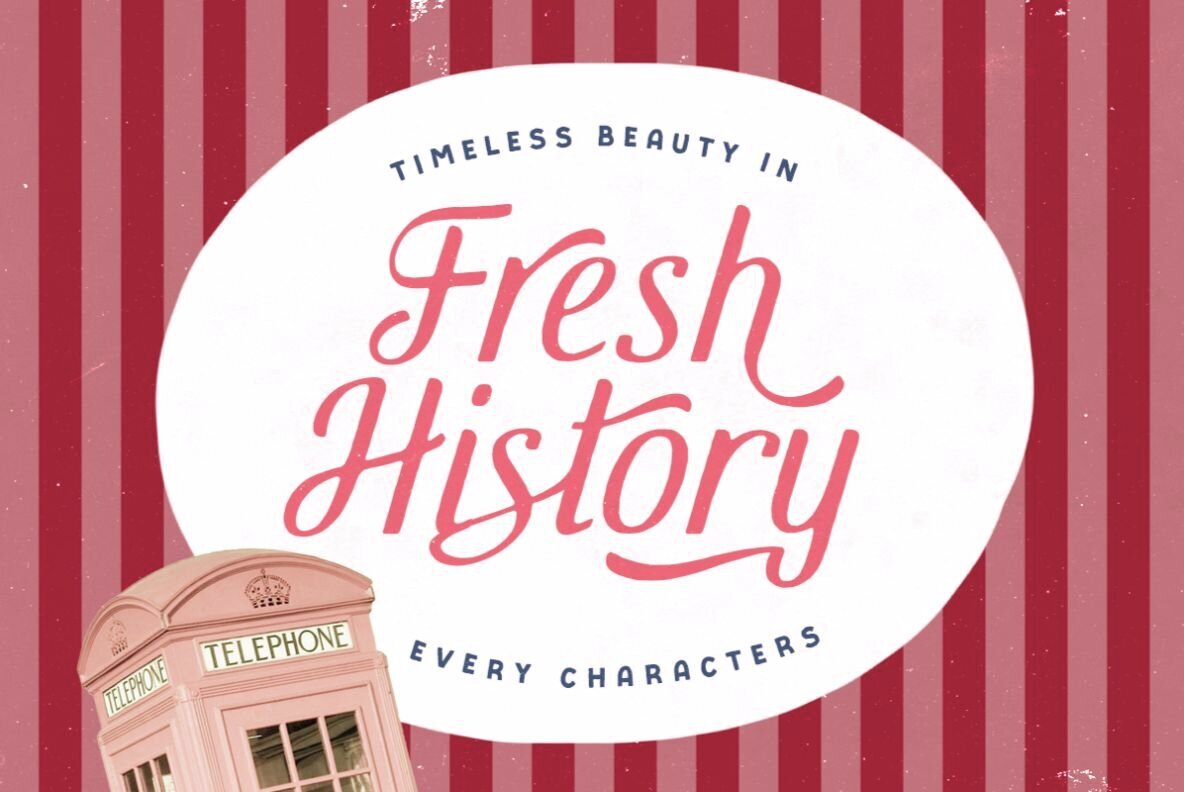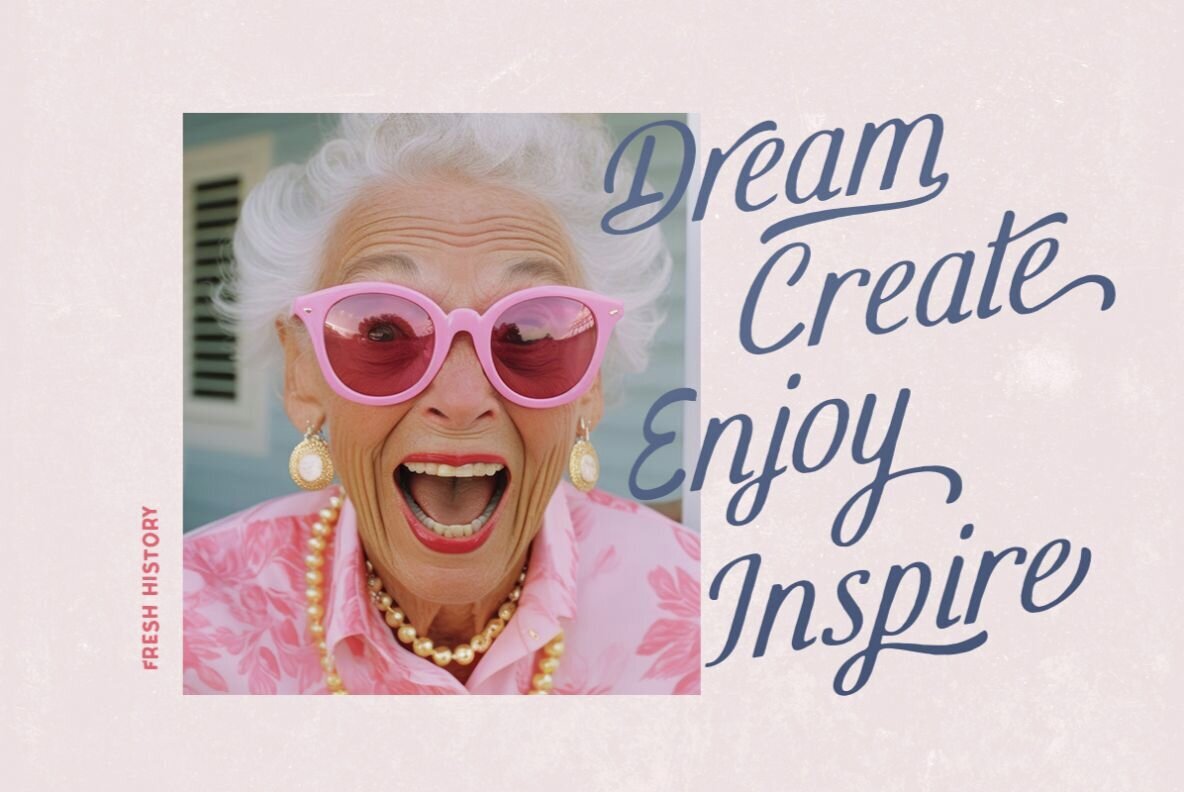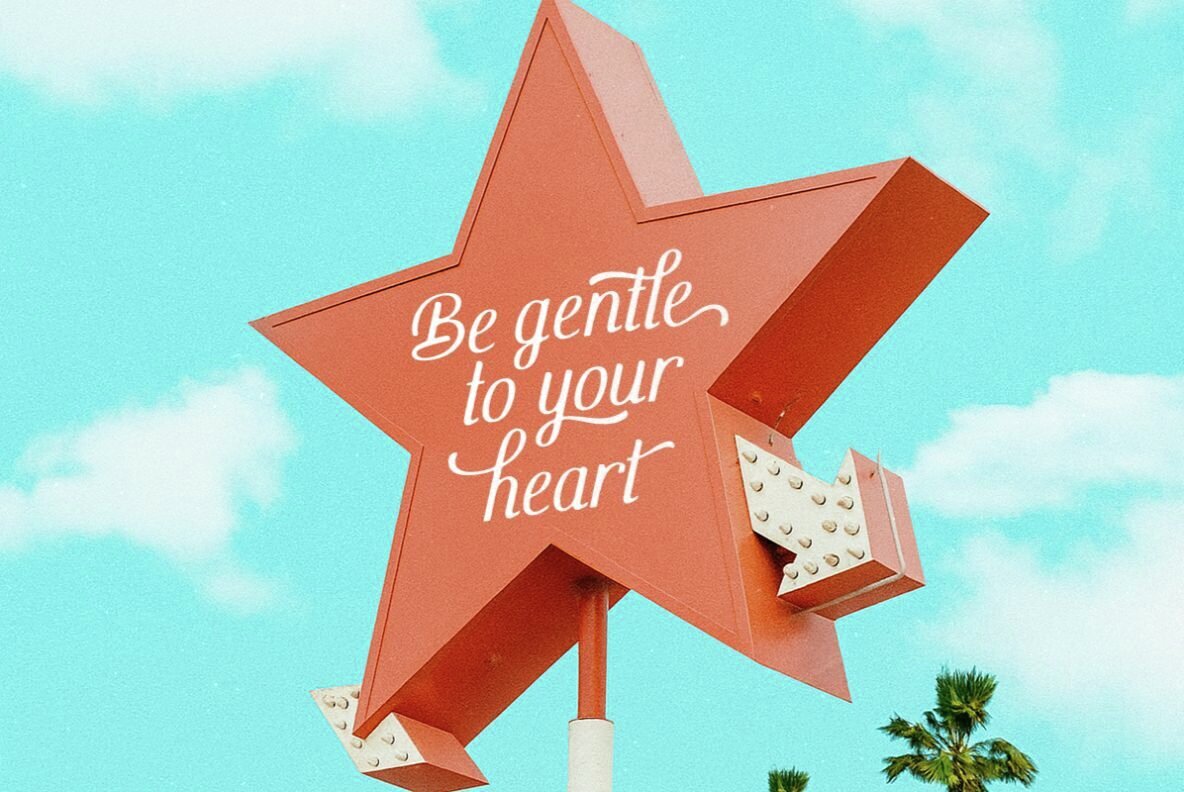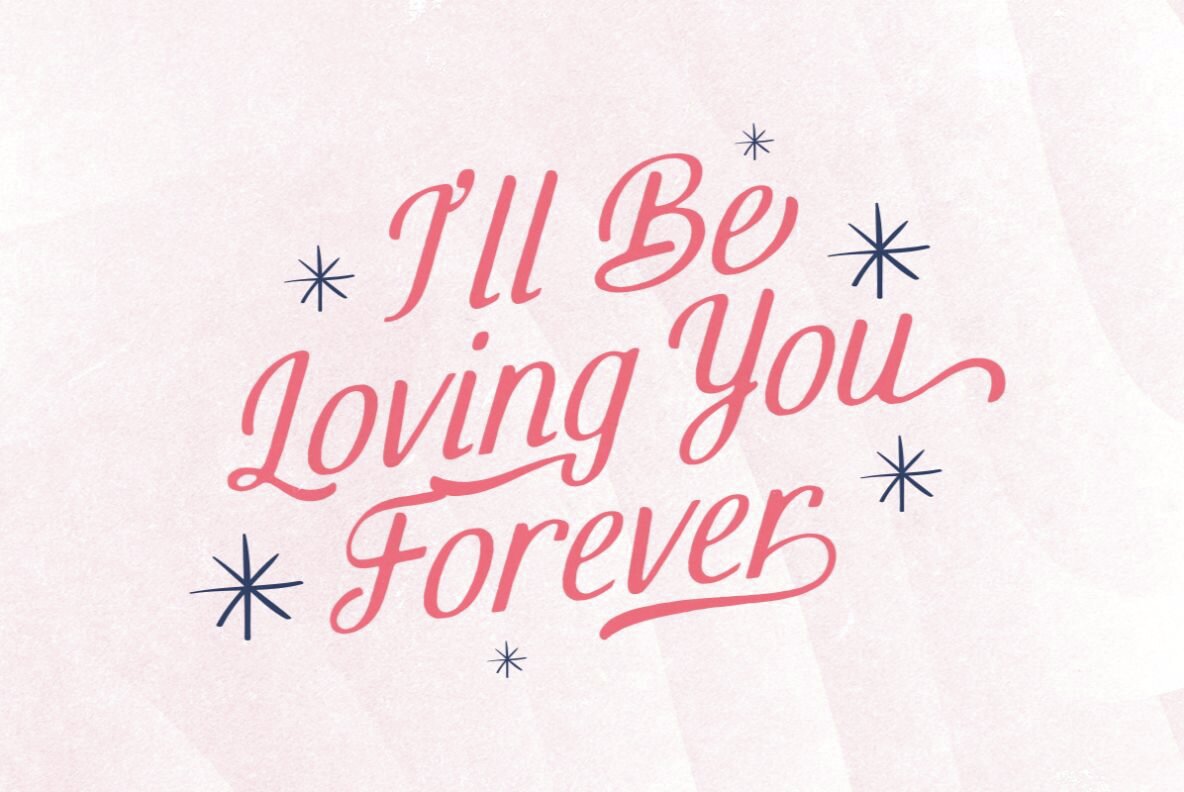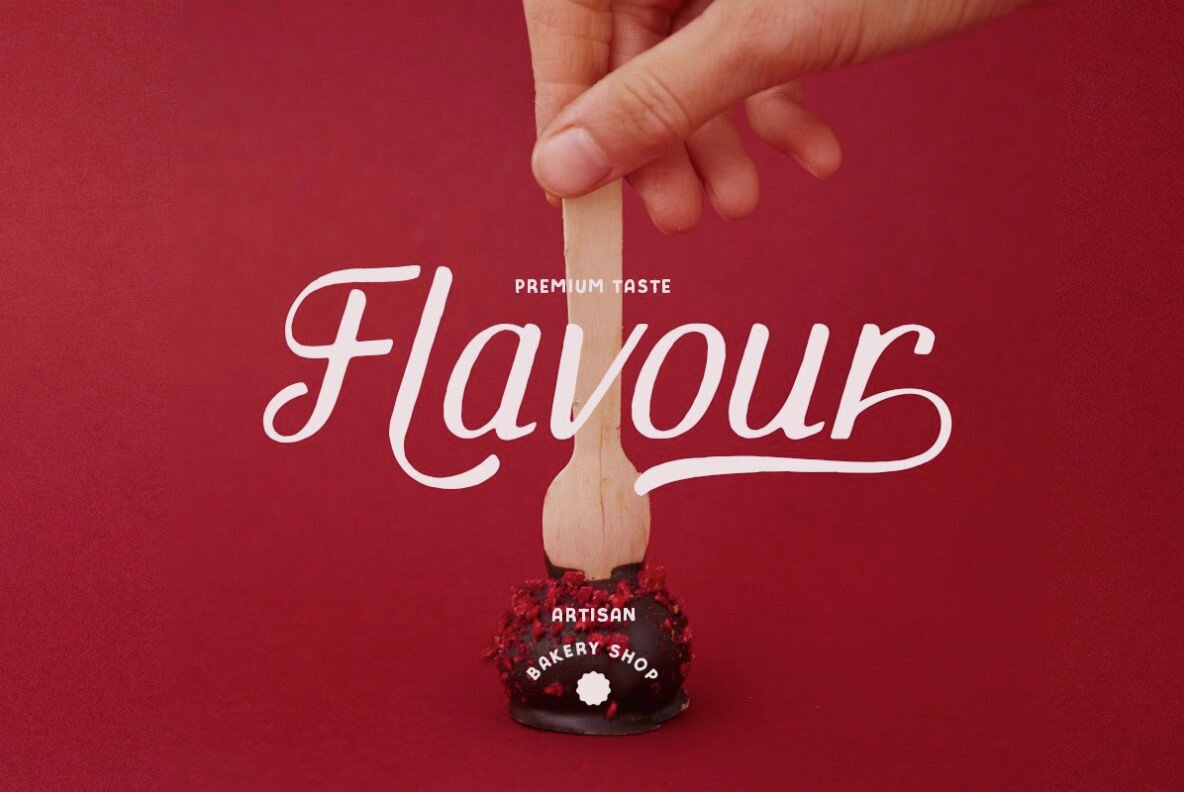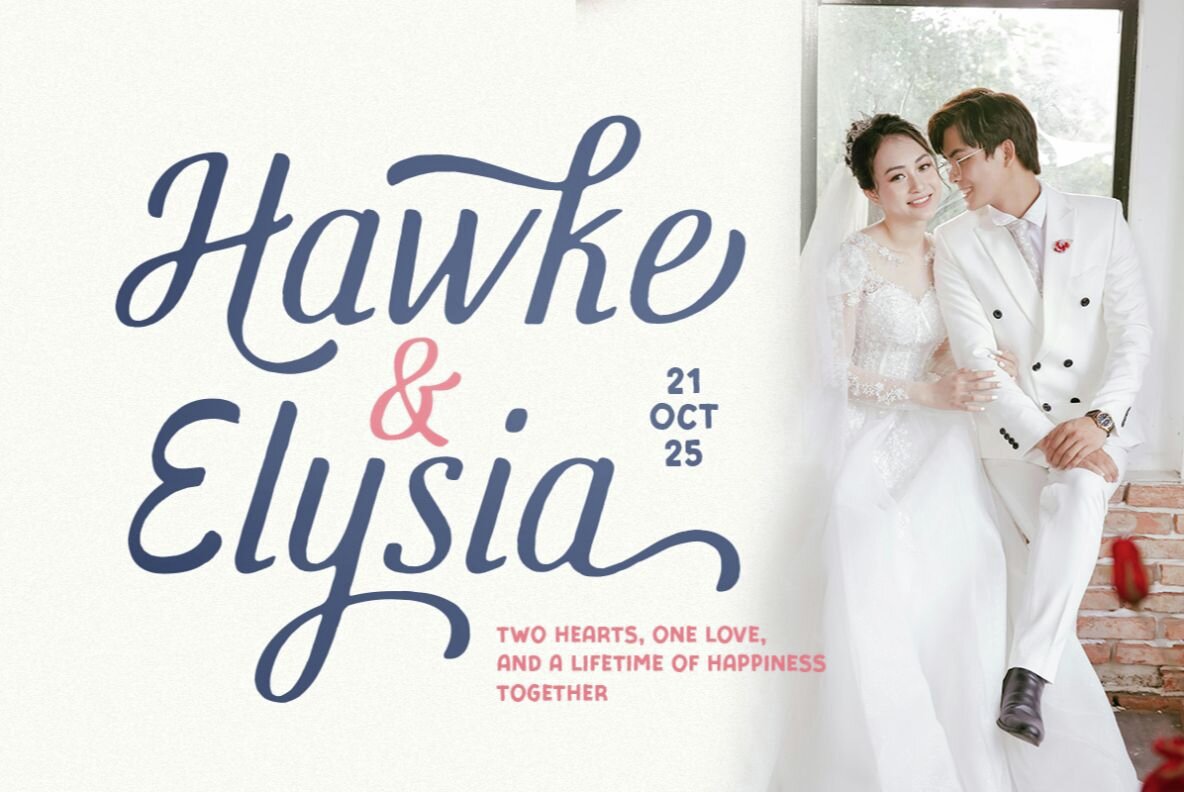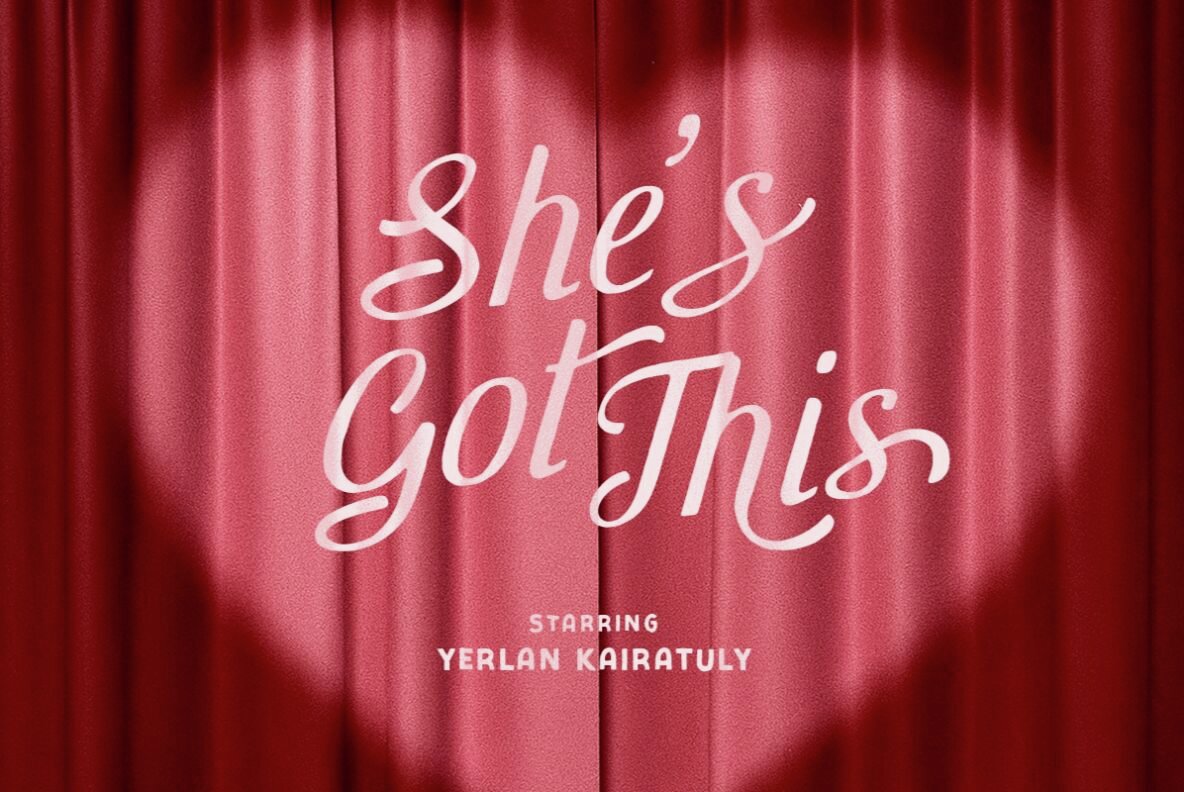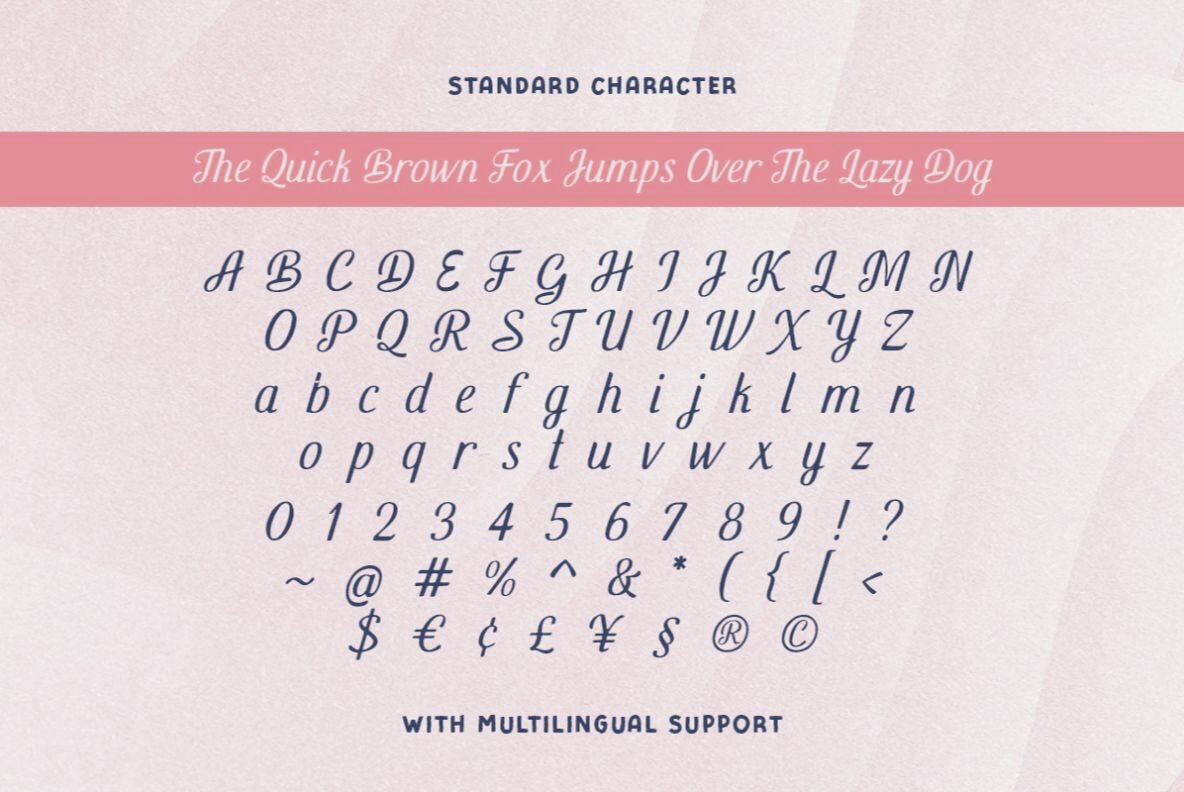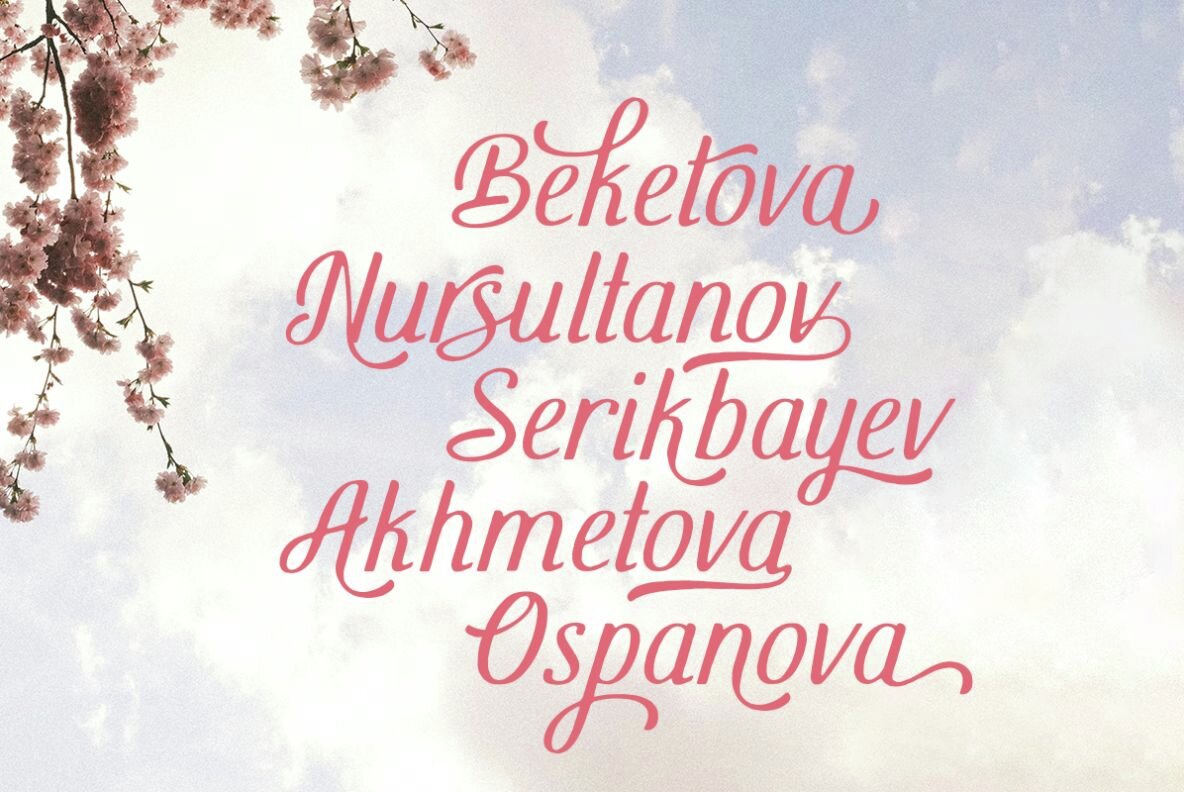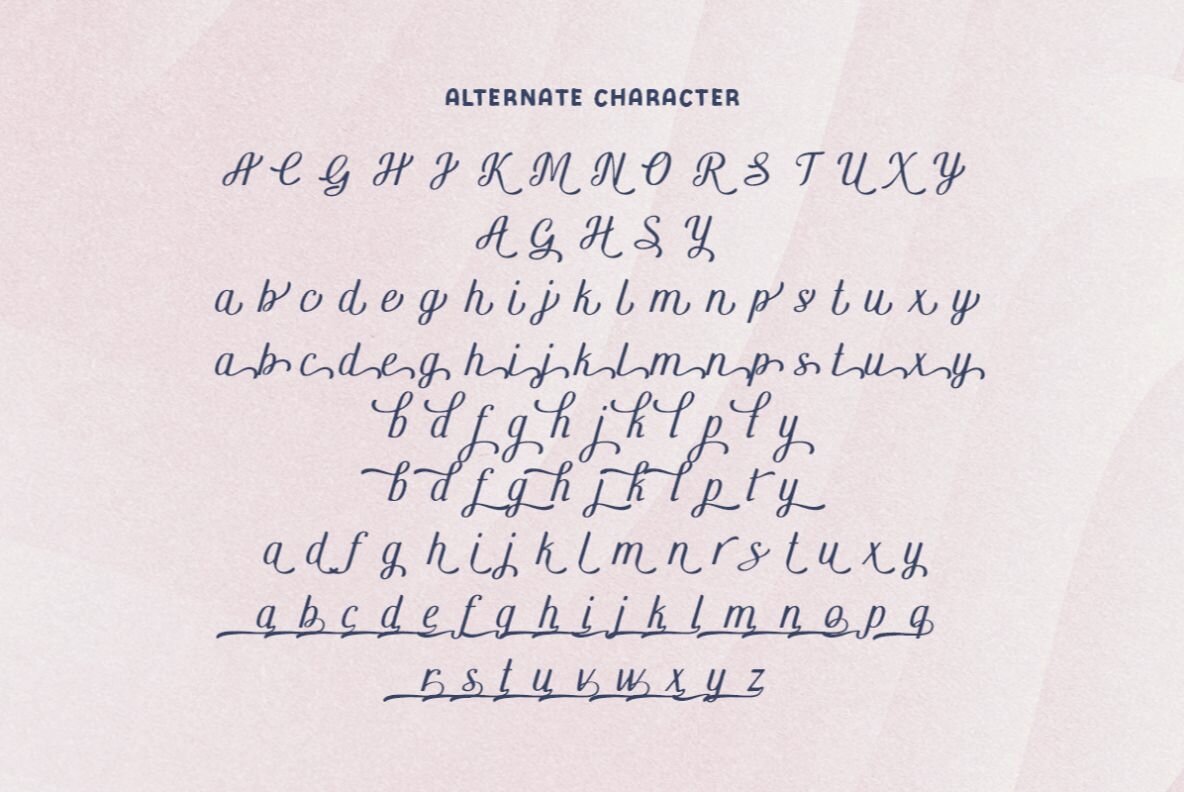
Fresh History Font
Fresh History Regular
Fresh History is a carefully designed hand-lettered script that blends expressiveness and warmth. Its character is defined by a collection of stylish alternates, giving each composition its own visual voice. This font is well-suited for branding projects, logotypes, retro-inspired posters, and wedding invitations. The script’s nostalgic quality invites a sense of familiarity and joy, appealing to designers seeking distinction in their work. With support for multiple languages, Fresh History adapts to a variety of creative contexts, from seasonal campaigns to holiday materials. Its playful nature makes it particularly attractive for projects where a festive or sentimental tone is desired, without overwhelming the design with ornamentation.Fresh History: Hand-Lettered Script With Expressive Alternates